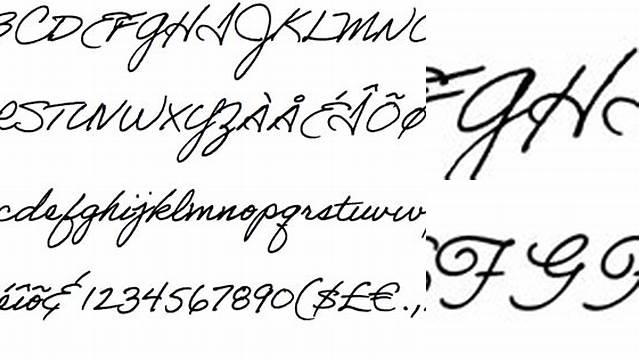
Hey there, creative folks! Ever wished you could sprinkle a touch of personal flair into your designs? Well, Adobe Handwriting Ernie Font is here to make your typography dreams come true. This font, with its charming handwritten style, is perfect for adding a warm, human touch to any project. And guess what? We're diving deep into how you can snag this gem for free and unleash its potential. Buckle up, because we're about to explore the world of Adobe Handwriting Ernie Font, covering everything from its unique features to where you can find it without spending a dime.
What Makes Adobe Handwriting Ernie Font Special?
Alright, let's get down to brass tacks. What's the big deal about Adobe Handwriting Ernie Font, and why should you care? First off, it's all about that authentic handwritten look. In a world saturated with sleek, polished fonts, Adobe Handwriting Ernie Font stands out with its natural, slightly imperfect strokes. It's like your favorite pen decided to grace your digital canvas. This font is designed to mimic the flow and variations of real handwriting, making it ideal for projects where you want to convey a sense of intimacy, approachability, or just plain fun. Whether you're designing a greeting card, crafting a personal blog header, or adding a signature feel to your brand, this font can elevate your work.
The beauty of Adobe Handwriting Ernie Font lies in its versatility. It's not just a one-trick pony; you can use it in various contexts. Think about it – wedding invitations, product packaging, social media graphics, and even e-book covers. The possibilities are endless. The font's design is clear and readable, ensuring your message is both stylish and easy to understand. It strikes a perfect balance between elegance and casualness, making it a go-to choice for those seeking a friendly, human touch. And the best part? The imperfections in the font's design add character, preventing your design from looking too sterile or impersonal. So, if you're aiming to connect with your audience on a more personal level, Adobe Handwriting Ernie Font is definitely worth considering. It’s more than just a font; it's a way to inject personality and charm into your designs, making them memorable and engaging.
Creative Uses and Project Ideas for the Font
Now that you've got the Adobe Handwriting Ernie Font, let's brainstorm some killer project ideas. This font is so versatile, you can practically sprinkle it on anything! Here are some cool ways to put this handwriting font to good use:
- Invitations and Cards: Give your wedding invitations, birthday cards, and holiday greetings a personal touch. The font adds warmth and intimacy that’s hard to achieve with generic fonts. It’s perfect for creating memorable and heartwarming designs.
- Social Media Graphics: Make your social media posts stand out with engaging captions and quotes in Adobe Handwriting Ernie Font. It's perfect for adding a friendly touch to your brand's online presence. This can include Instagram stories, Pinterest pins, and Facebook posts.